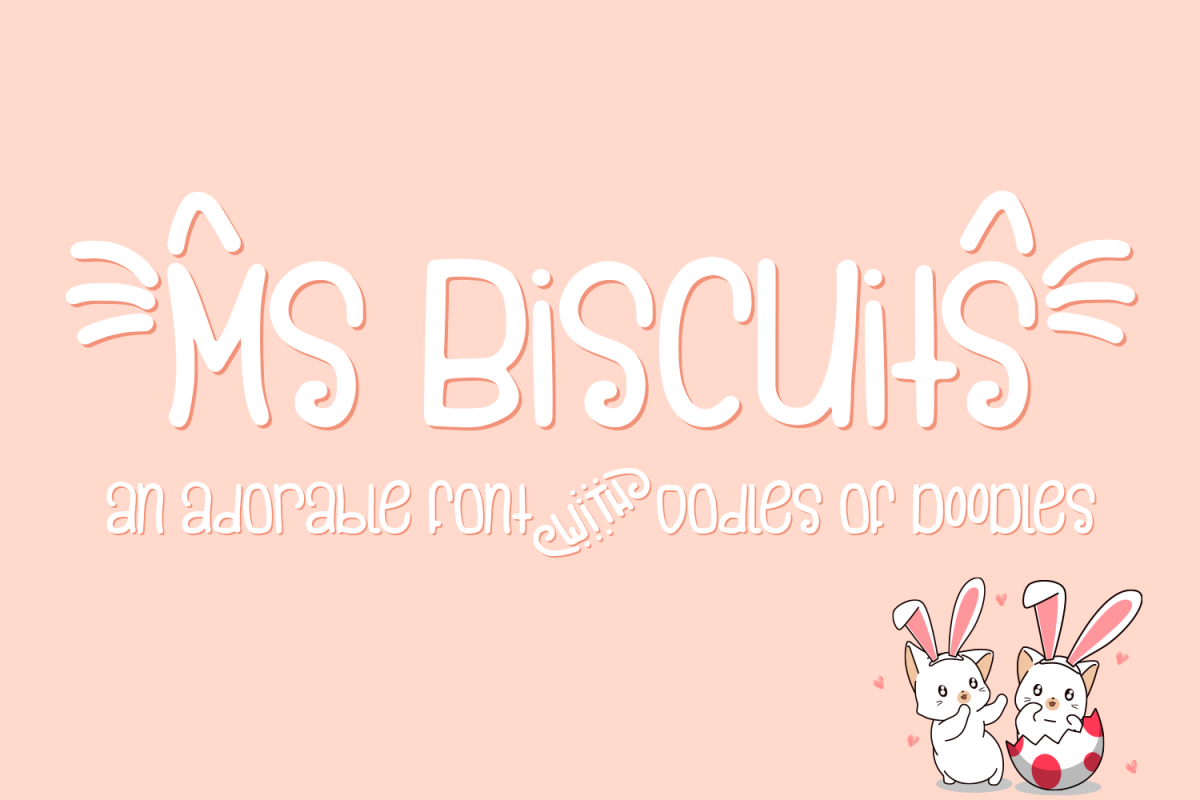
Ms. Biscuits - an adorable handwritten font with doodles
Ms Biscuits Doodles
Ms Biscuits
Ms. Biscuits is an adorable handwritten font with oodles of doodles! This font was inspired by my cat, a perpetual biscuit machine, who only stops making biscuits for zoomies at 3am.
You can use this font to create cute monograms with cat ears, bunny ears and bug ears (and wings.) To make things easier I included an extra font (Ms Biscuits Doodles.)
Use it on packaging, printables, branding and logos, stationery and so much more!
• Standard Ligatures
• Discretionary Ligatures
• Stylistic alternates
• Swashes
• Ornaments
• Frames
• Catchwords
• And Doodles!